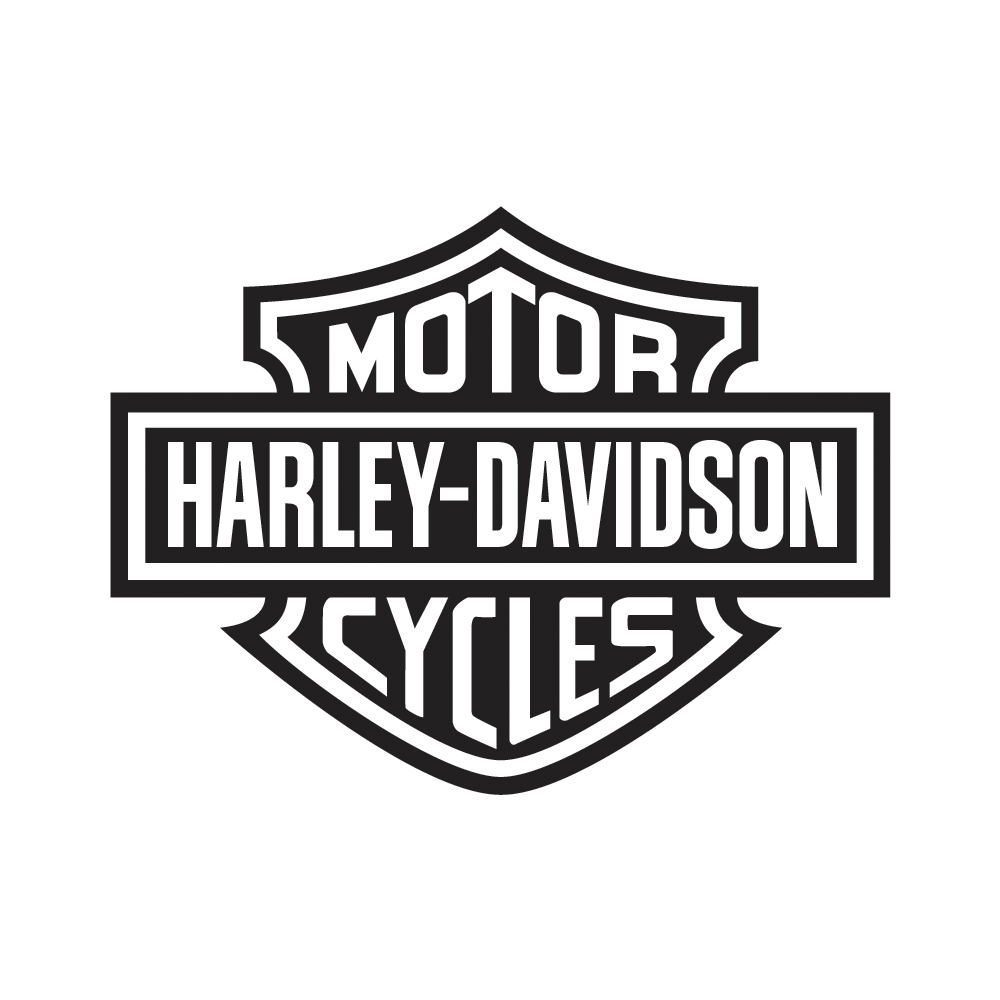
Harley Davidson Font
LogoHarley-Davidson is a motorcycle manufacturer in the United States. It is known for producing a range of cruiser motorcycles with large V-twin engines, as well as a variety of other motorcycle models, including touring, sport, and electric bikes.
The font used for Harley Davidson logo is Block Gothic RR Bold ExtraCond by Red Rooster Collection. Block Gothic is a sans-serif typeface designed by Frederic Goudy in the early 20th century. It is characterized by its strong, block-like letterforms and is often used for display purposes.